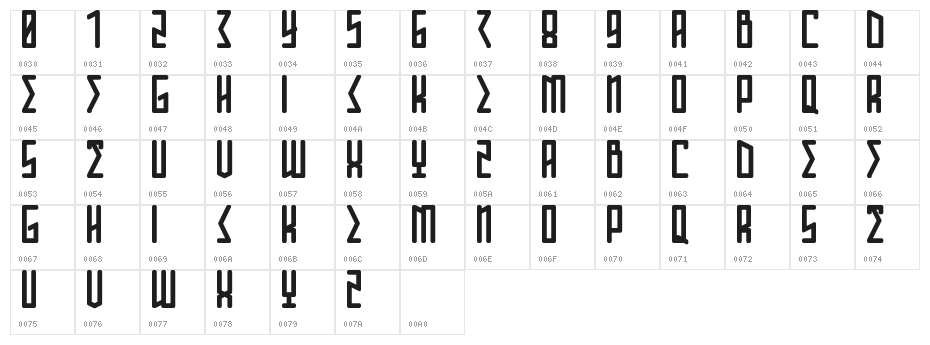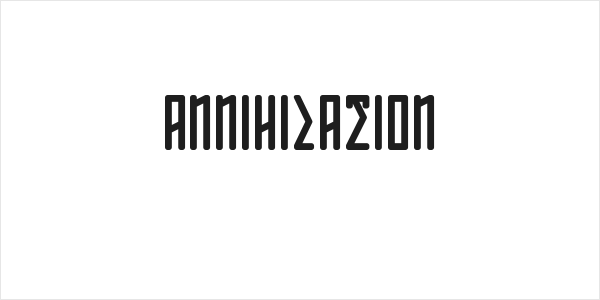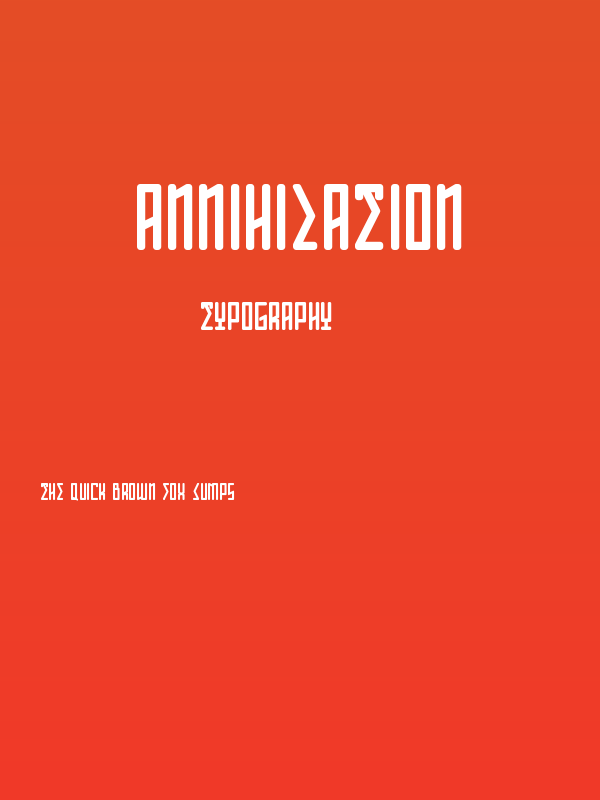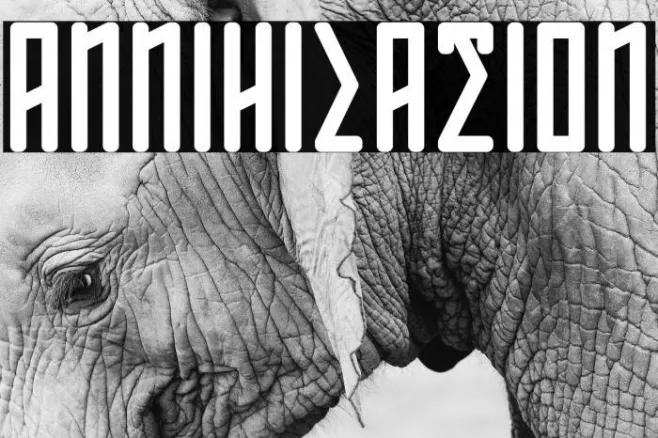
ANNIHILATION Font
ANNIHILATION Description
This font features a bold and geometric design with a futuristic and angular aesthetic. The characters are constructed with thick, uniform strokes that create a strong visual impact. The uppercase letters have a unique style, incorporating sharp angles and straight lines that give them a modern and edgy appearance. The numbers and special characters follow the same design principles, ensuring consistency throughout the typeface. This font is ideal for projects that require a bold and distinctive look, such as branding, posters, or digital media.
| Proposed Projects | Ideal for branding, posters, digital media, and any project needing a bold, modern look. |